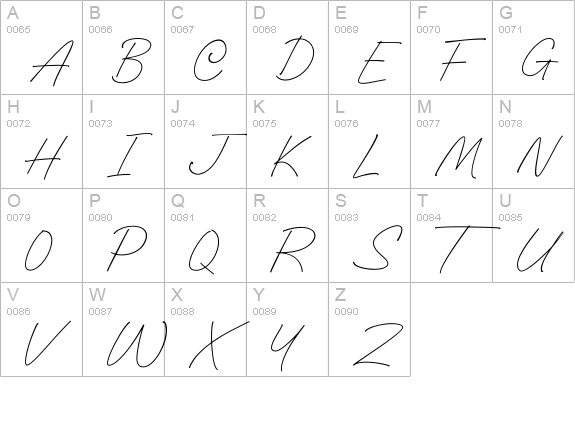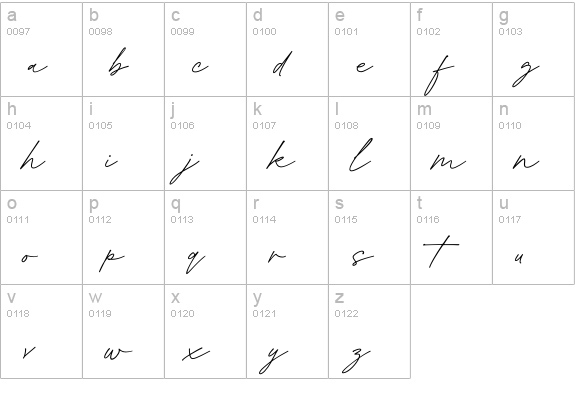
Gofar Script font is a stylish and elegant typeface that exudes sophistication and charm. With its flowing and graceful curves, this script font is perfect for adding a touch of class to any design project. The intricate details and unique letterforms of Gofar Script make it stand out from the crowd and give your work a polished and professional look. Whether you're designing invitations, logos, or branding materials, Gofar Script is sure to make a lasting impression.